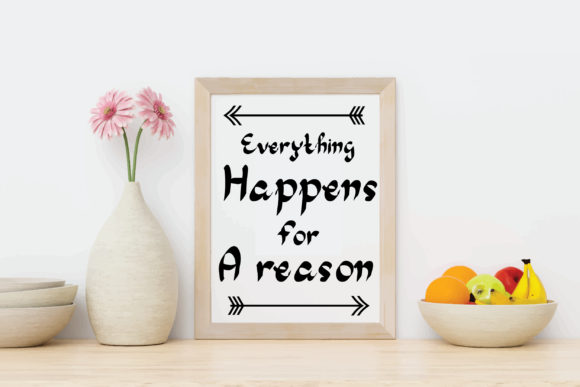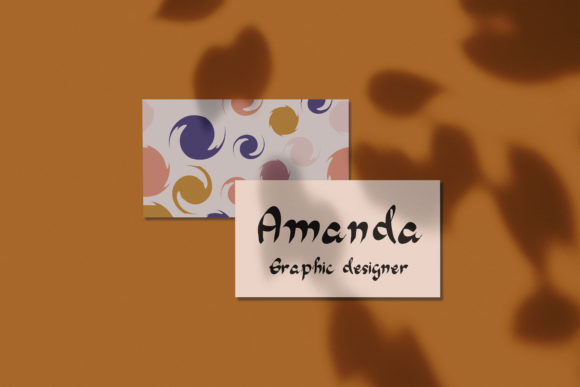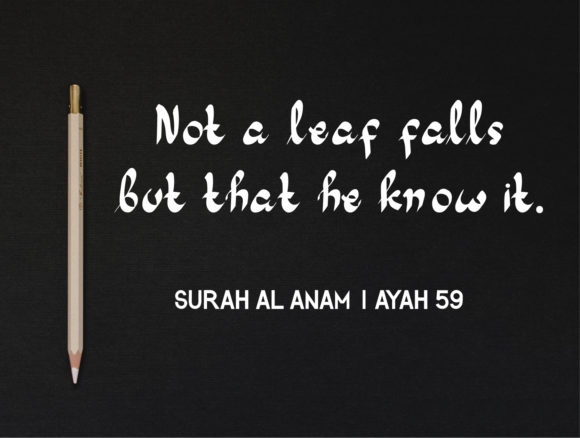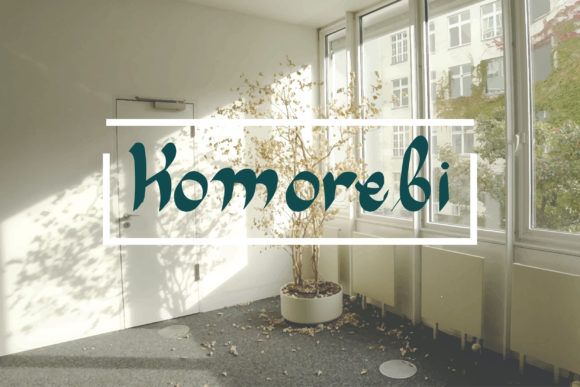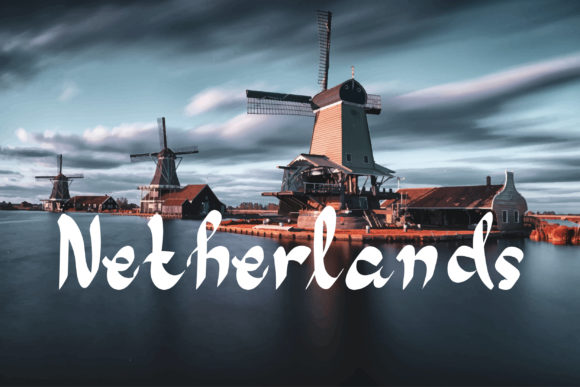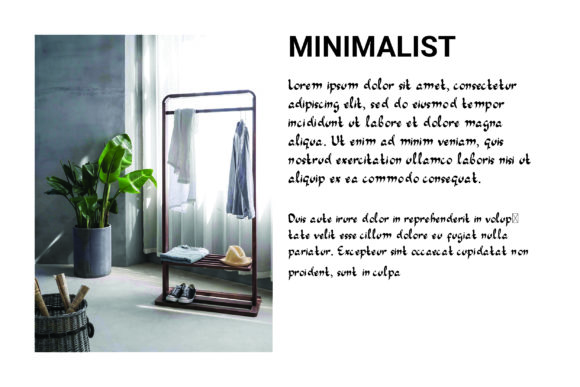
Adding a Touch of Elegance: The Arishia Font
As designers, we’ve all been there – staring at a blank canvas, searching for the perfect font to bring our vision to life. It’s that moment when the perfect script font can make all the difference. For me, it was the moment I discovered the Arishia Font – a stylish and incredibly elegant script font that instantly elevated my designs.
The Arishia Font is designed to add a touch of handwritten charm to any design. Whether it’s a wedding invitation, a thank you card, or a logo, this font is sure to make a lasting impression. Its versatility and elegance make it a valuable asset for designers, allowing them to add a personal and sophisticated touch to their work.
Arishia Font Key Features
- Unique Characteristics: Elegant, cursive script with a touch of modernity; perfect for creative and artistic projects
Arishia Font Review
I recently had the chance to work with the Arishia font, and I must say it’s a mixed bag. ✨ Here are some of its strengths:
- Unique character**: Arishia stands out with its distinctive, hand-drawn aesthetic that’s perfect for adding a touch of whimsy to your designs.
- High-quality glyphs**: The font includes a wide range of glyphs, including international characters, which is a big plus for designers working on projects with global reach.
- Good legibility**: Despite its ornate appearance, Arishia is surprisingly easy to read, making it a great choice for body text.
However, I did encounter some limitations: ⚠️
- Limited versatility**: Arishia is best suited for projects with a relaxed, handcrafted feel. If you need a font for a more formal or corporate design, you might find it lacking.
- Some font pairing challenges**: Arishia’s unique style can be a bit tricky to pair with other fonts, which may limit your design options.
Overall, Arishia is a solid choice for designers who want to add a touch of personality to their projects. While it may not be the best fit for every design scenario, it’s definitely worth considering for projects that require a bit of flair.
Tips for Getting the Most Out of Arishia Font
Use Arishia font for creative projects that require a unique, elegant touch.
Pair Arishia with complementary colors to enhance its visual appeal.
Experiment with different font sizes and styles to create a visually interesting design.
Magazine and brochure design
Business card and logo design
Alternatives to Arishia Font for Designers
Ostrich Sans is a modern sans-serif font that is highly legible and versatile. It is ideal for use in digital products, such as websites and mobile apps, where a clean and professional look is required. Compared to Arishia Font, Ostrich Sans has a more geometric and minimalist aesthetic, making it a great choice for modern designs.
Montserrat is a geometric sans-serif font that is highly versatile and suitable for a wide range of designs. It is a great choice for use in headings and titles, and is also suitable for body text. Compared to Arishia Font, Montserrat has a more modern and urban feel, making it a great choice for designs that require a sense of sophistication and elegance.
Inter is a sans-serif font that is highly legible and versatile. It is a great choice for use in digital products, such as websites and mobile apps, where a clean and professional look is required. Compared to Arishia Font, Inter has a more modern and minimalist aesthetic, making it a great choice for modern designs that require a sense of simplicity and elegance.
Lato is a sans-serif font that is highly legible and versatile. It is a great choice for use in digital products, such as websites and mobile apps, where a clean and professional look is required. Compared to Arishia Font, Lato has a more elegant and refined aesthetic, making it a great choice for designs that require a sense of sophistication and elegance.
Exploring the Elegance of Arishia Font
Create enchanting wedding invitations that transport your guests to a magical world.
Q: What is the recommended font size and line height for optimal readability with Arishia Font?
For optimal readability, we recommend using a font size between 12-18 points and a line height of 1.2-1.5 times the font size. This will ensure that the text is clear and easy to read, while also maintaining a visually appealing layout.